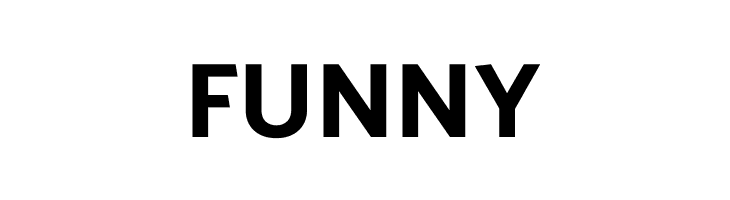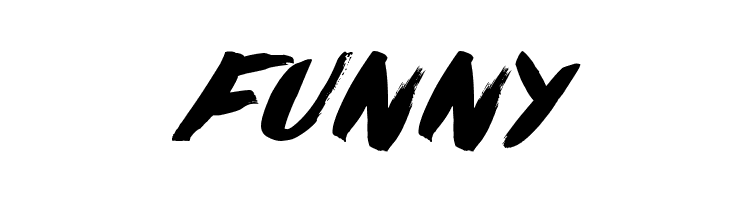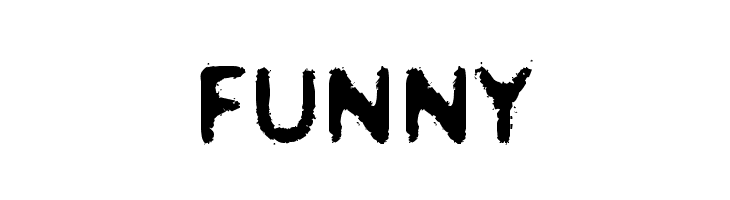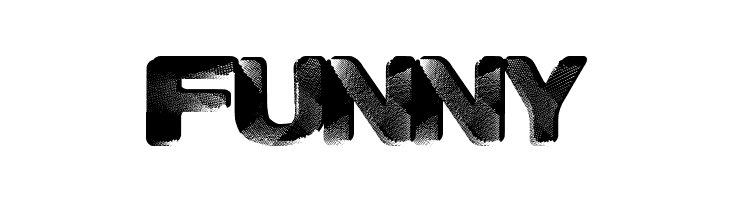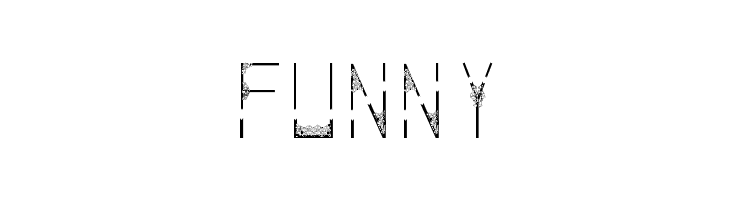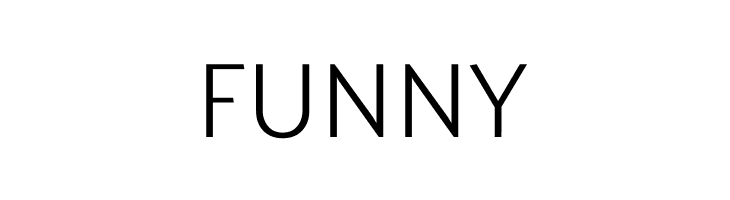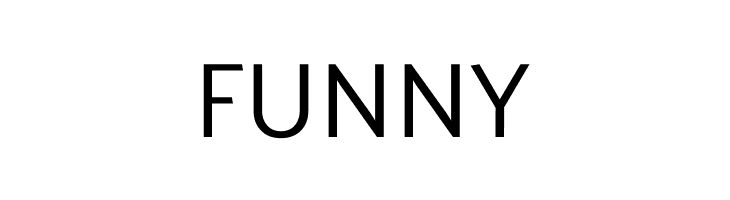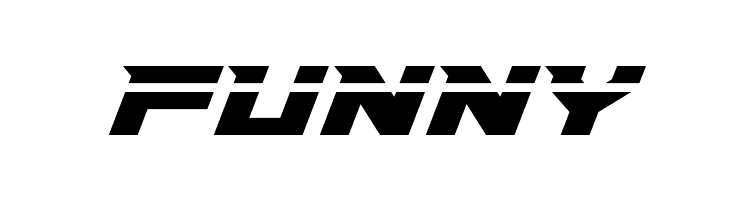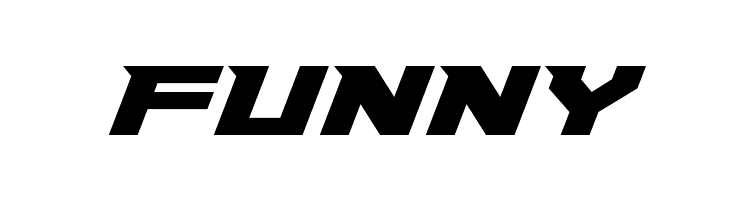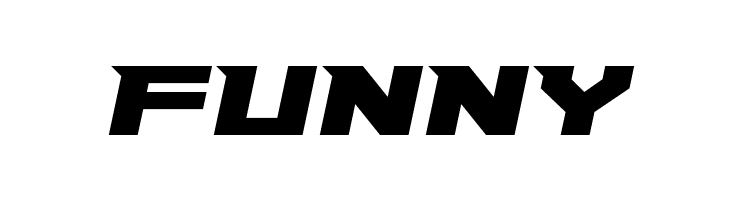
A bold, brushstroke font with a dynamic, hand-painted appearance.
A bold, textured font with a paint-like, artistic style.
A bold, 3D geometric font with a futuristic and dynamic style.
A bold, angular, and condensed font with a futuristic style.
A bold, futuristic font with sharp angles and a dynamic slant.
A bold, futuristic font with a horizontal line gradient effect.
A futuristic, angular font with a bold, geometric style.
A bold, geometric outline font with a futuristic and dynamic style.
A bold, semi-italic font with sharp, angular edges and a futuristic style.
A bold, geometric font with a futuristic and structured design.
A modern, bold typeface with clean lines and excellent readability.
A bold, modern sans-serif font with a clean and geometric design.
A bold, modern sans-serif font with clean, geometric lines.
A modern sans-serif font with medium weight and balanced design.
A modern, geometric sans-serif typeface with clean lines and balanced proportions.
A bold, modern sans-serif font with excellent readability.
A bold, modern sans-serif font with clean lines and geometric shapes.
A modern, light, and clean sans-serif font with uniform stroke width.
A modern, light sans-serif font with low contrast and excellent readability.
A clean, modern sans-serif font with consistent stroke width and excellent readability.
A modern, geometric sans-serif font with balanced proportions and clear legibility.
A modern, geometric sans-serif font with balanced proportions and consistent stroke width.
A modern sans-serif font with a semi-bold weight and clean, uniform design.
A modern, thin sans-serif font with clean lines and balanced spacing.
A decorative font with intricate palm leaf patterns in each character.
A rugged, distressed font with an organic, hand-crafted appearance.
A bold, distressed font with a hand-crafted, artistic look.
A playful, artistic font with irregular strokes and a hand-drawn feel.
A bold, geometric font with a modern, artistic design.